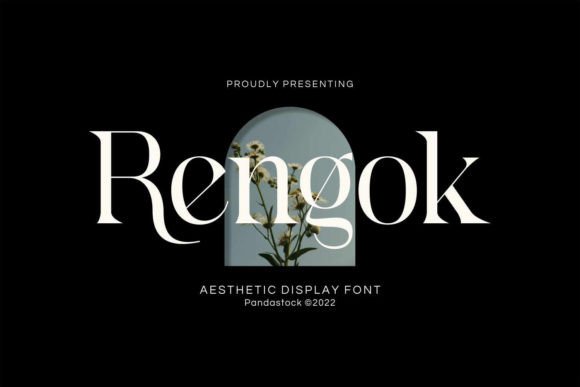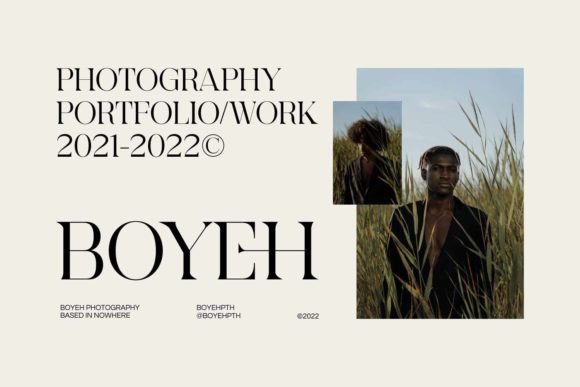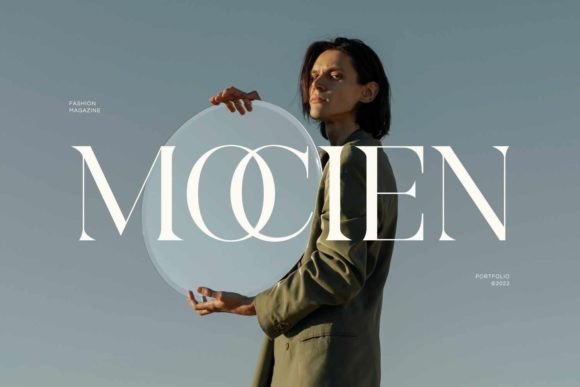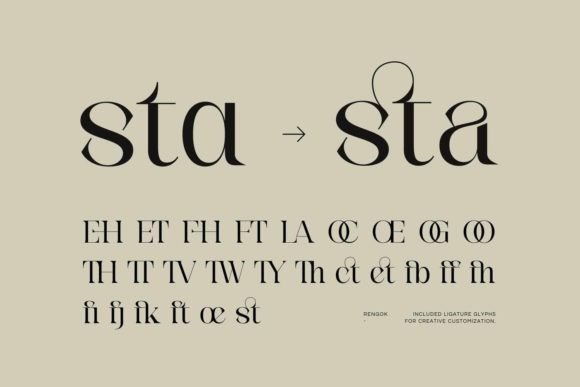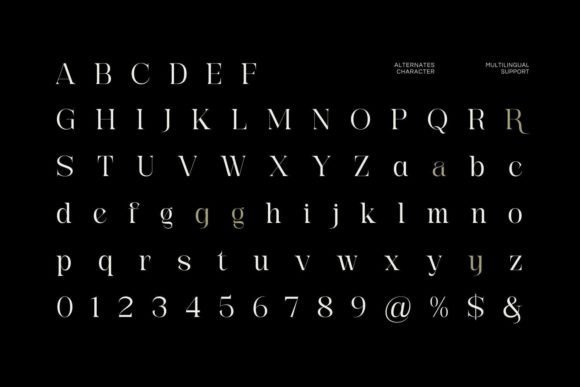
Rengok
Rengok: An Elegant and Versatile Slab Serif Font
Rengok is an elegant slab serif font featuring visual elegance, smooth curves, and beautiful ligatures. This versatile typeface works effectively in both large and small sizes, making it perfect for various business and creative applications.
Key Features of Rengok
• Elegant Design: Offers refined letterforms with smooth curves[2].
• Beautiful Ligatures: Features attractive character combinations.
• Versatile Scaling: Works well in both large and small sizes[4].
• Wide Application: Adapts to numerous business sectors.
Best Uses for Rengok
Thanks to its versatile characteristics, Rengok works especially well for:
When using Rengok in your designs, keep these tips in mind:
• Take advantage of its beautiful ligatures for elegant typography[2].
• Use its smooth curves for sophisticated designs.
• Let its versatile scaling enhance both display and body text[4].
• Explore its potential across different business applications.
To sum up, Rengok is an excellent choice for designers seeking an elegant and versatile slab serif font. Its ability to work effectively in both large and small sizes makes it perfect for various projects. Whether you’re creating corporate materials, designing product packaging, or developing creative content, Rengok offers the perfect blend of elegance and practicality.
Furthermore, Rengok’s distinctive design allows it to shine in contexts where both beauty and functionality are key. From editorial designs to social media content, this font can elevate your projects with its refined style. Also, its elegant yet readable appearance works particularly well in designs that aim to make a sophisticated impact[2][4].
In conclusion, Rengok truly captures the essence of elegant design in slab serif typography. Its versatility across different applications shows how well it can serve various creative and business needs. Therefore, for those wanting to add a touch of refined sophistication to their work, Rengok can enhance any design with its distinctive style. Ultimately, it’s perfect for designers aiming to make an elegant, professional impact across a wide range of projects.